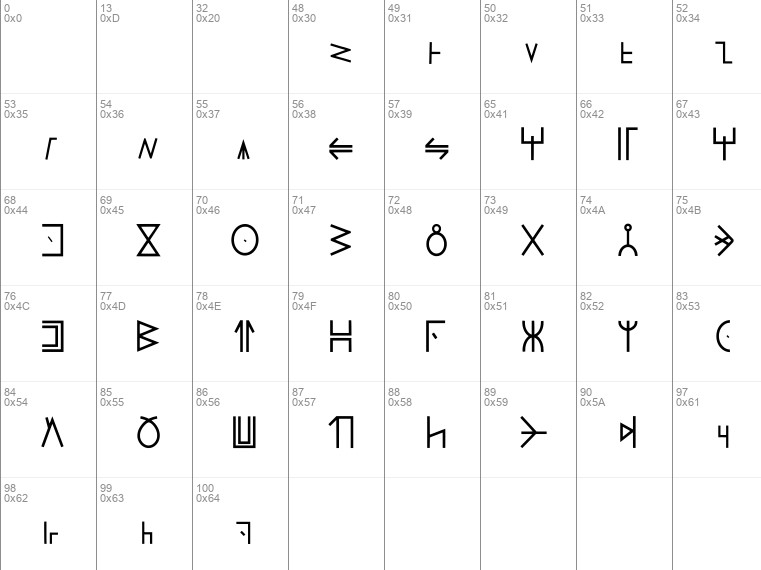
Modern Wakandan Font
Modern Wakandan Font is the primary typeface of android devices. This is also present inside google fonts, and it is also known as black panther font.
This font can be very much like a bartdeng handwritten font that abilities a present-day layout. The font is just like noir typeface font in each day, thin, and maximum bold variations.